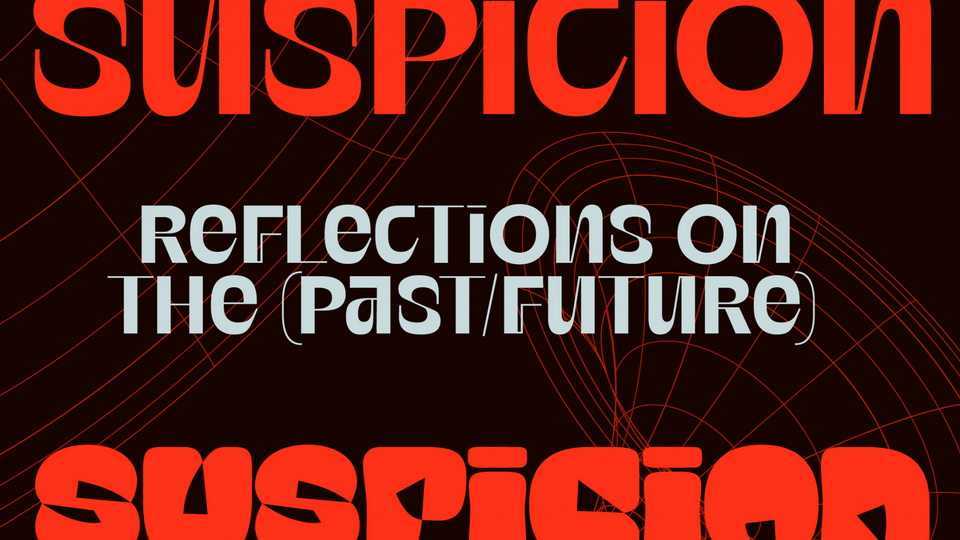
Download Suspicion font, a typeface designed based on reflections on one’s ideas of the past and future. The design is meant to hold a tension between simplicity and complication, as a way to illustrate the idea that the future is still something to decode.